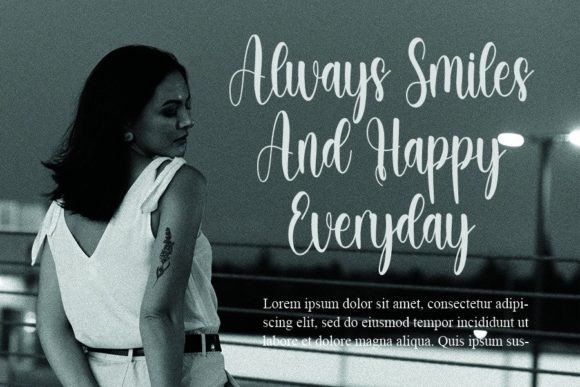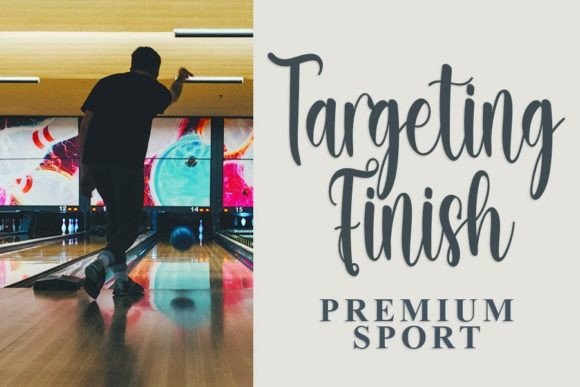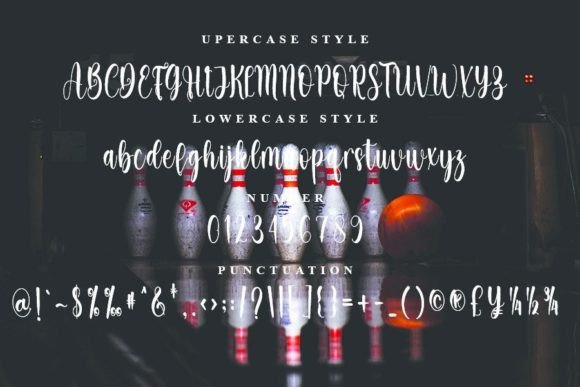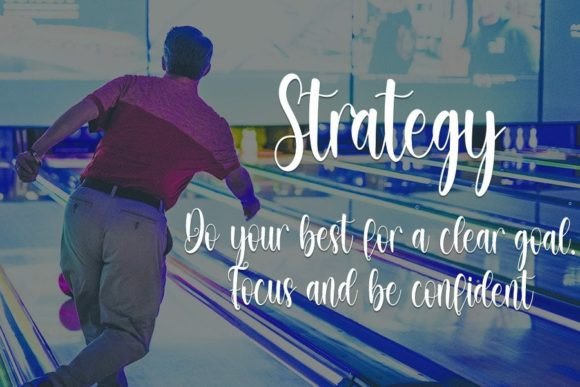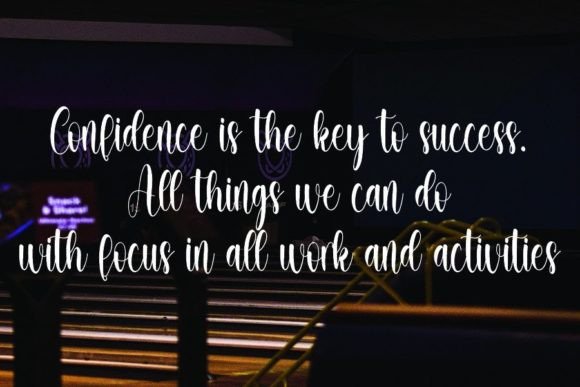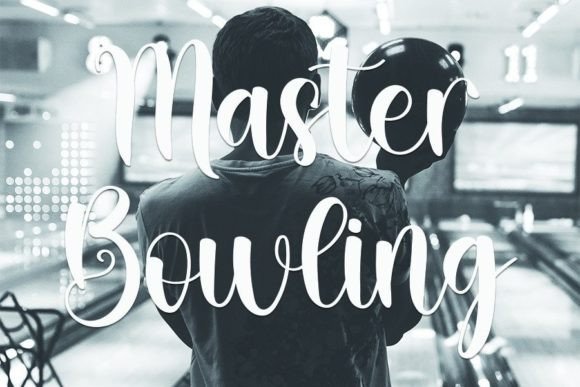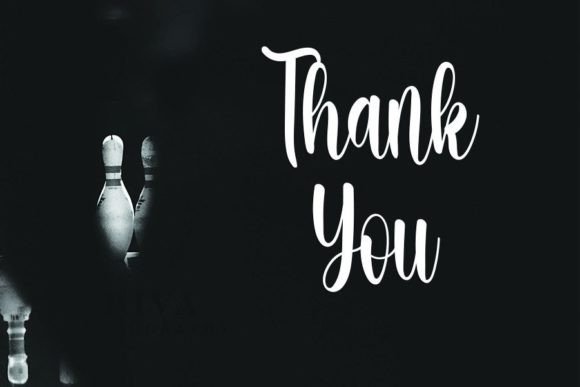
Bowling Font
About Bowling Font
Bowling, a stylish handwritten font, encapsulates a contemporary atmosphere with impeccable form, drawing inspiration from timeless classic calligraphy. This font embodies a perfect balance and variety, carefully crafted to elevate the aesthetic allure of your creative projects.
The contemporary essence of Bowling makes it a versatile choice for a plethora of applications. Whether you’re working on branding, logos, invitations, or any other design project, Bowling brings a touch of sophistication and modernity. Its roots in timeless classic calligraphy bestow an elegant aura, rendering it suitable for both formal and creative contexts.
The balanced and varied characteristics of Bowling ensure that it can enhance the beauty of diverse design projects. From intricate wedding invitations to impactful branding materials, this font adapts seamlessly to different styles and themes. The thoughtful design elements result in a font that is visually appealing and functionally effective.
Bowling’s handwritten quality adds a personalized touch to your designs, going beyond conventional typography. Its fluid strokes and distinct characters contribute to a unique visual identity, making Bowling an excellent choice for those seeking to infuse their projects with personality.
Regardless of whether you’re working on digital or print designs, Bowling is poised to make a lasting impression. Its impeccable form ensures legibility, while the stylish handwritten aesthetic introduces an artistic dimension. The font’s adaptability makes it suitable for a diverse range of projects, providing a reliable and elegant option for your creative endeavors.
In essence, Bowling transcends the realm of a mere font; it stands as a design tool meticulously created to enhance the beauty of your projects. With its contemporary style, rooted in timeless classic calligraphy, Bowling offers a versatile and sophisticated choice for those looking to make a statement with their typography. Opt for Bowling to bring a touch of elegance and modernity to your designs, creating visual experiences that resonate with your audience.